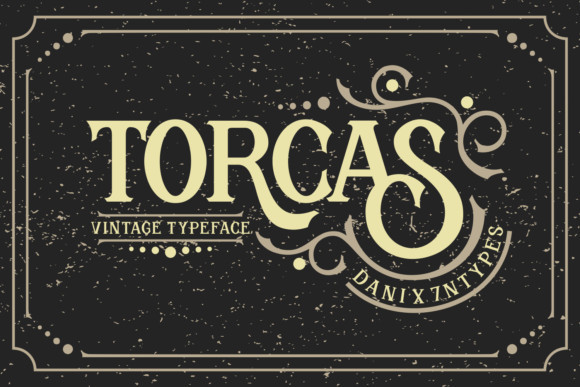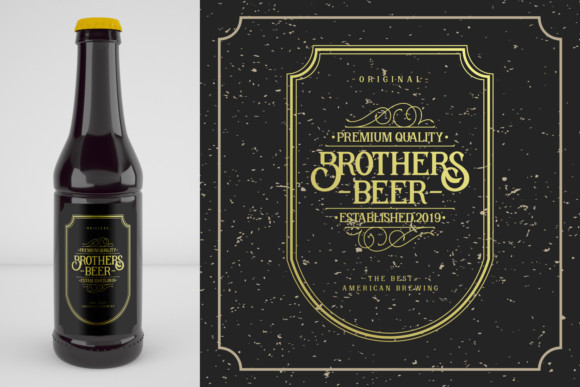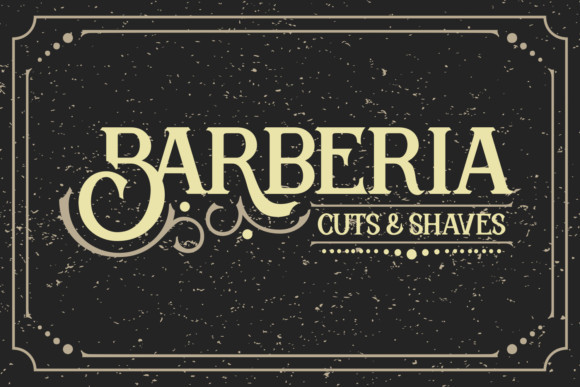
Torcas Font
Torcas is an extremely elegant serif font that aches with nostalgia. This sentimental typeface is perfect for evoking a sentimental and elegant feel in any design project. It’s the ideal font to be used in logos, badges, packaging, titles, posters, t-shirt/shirts, and much more!